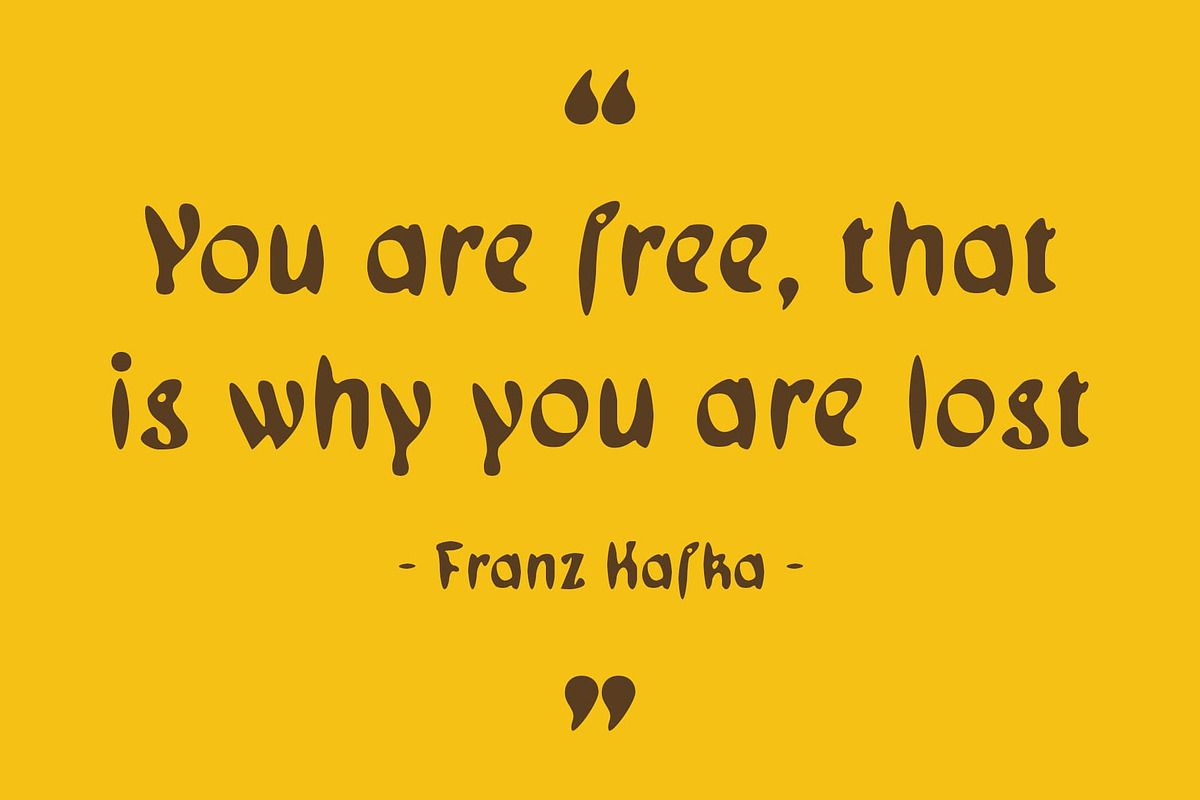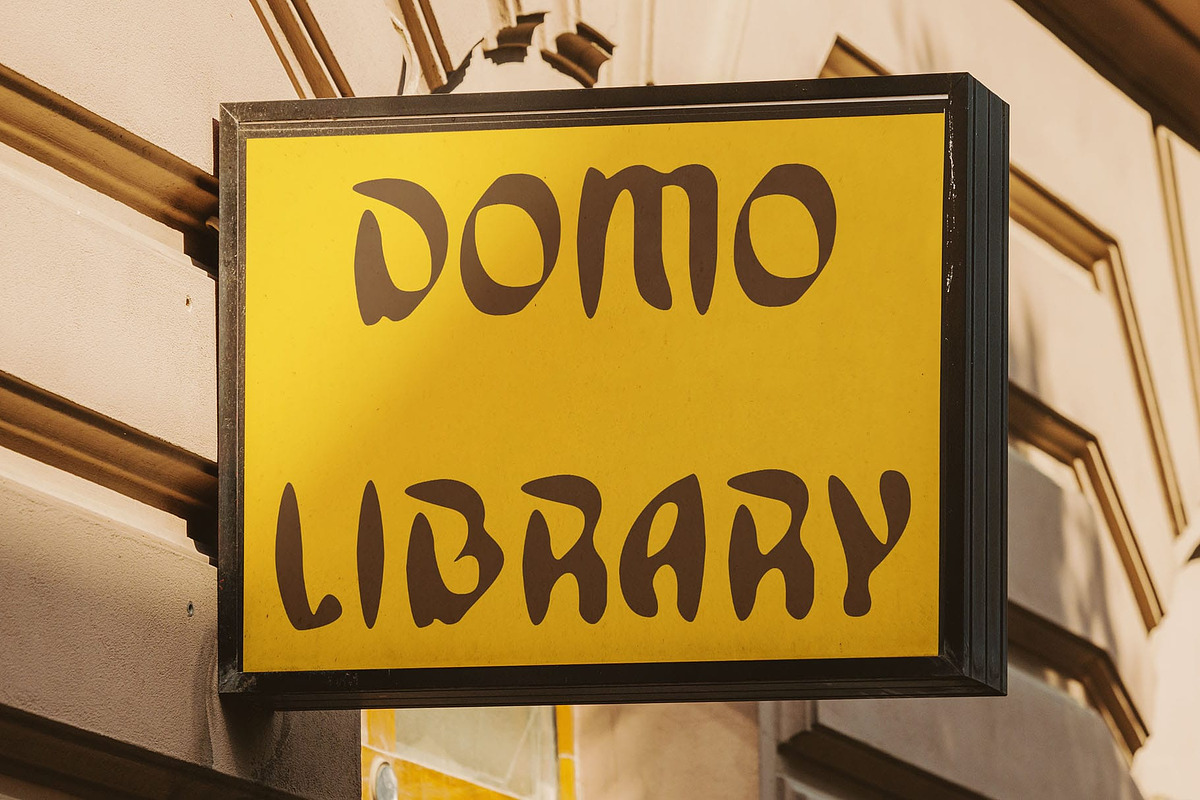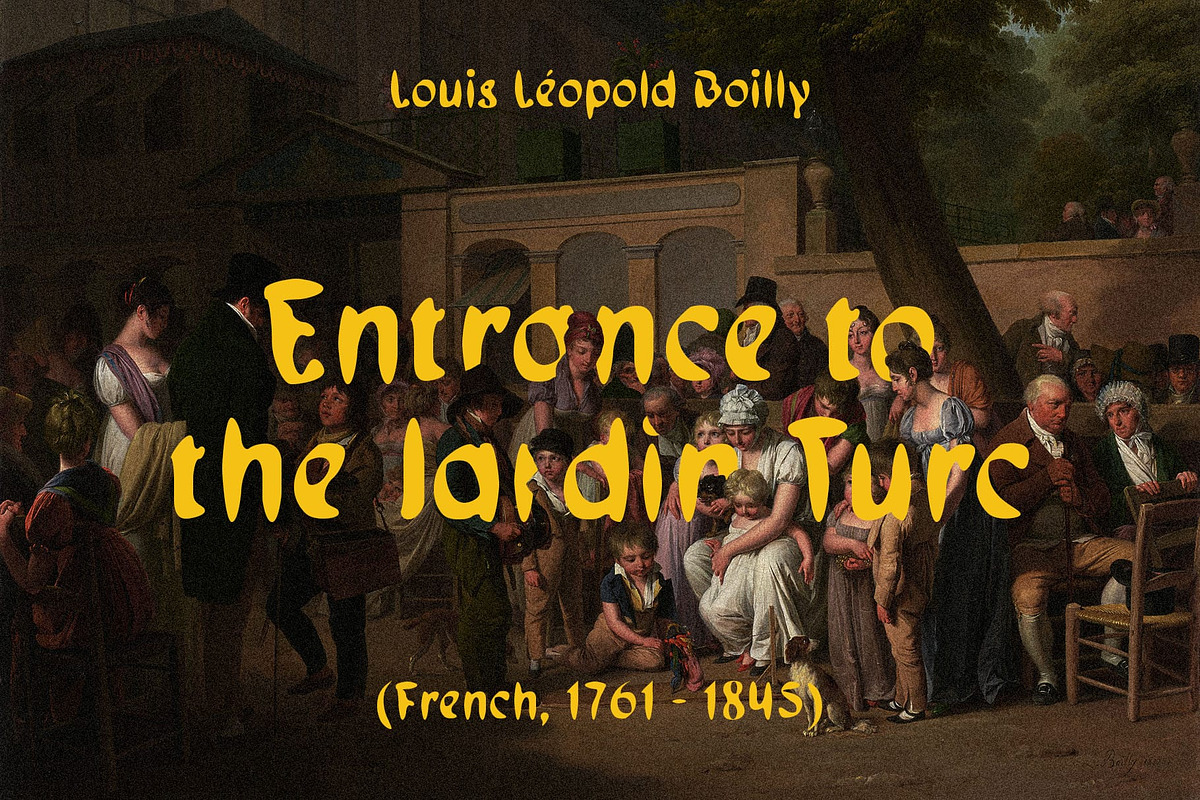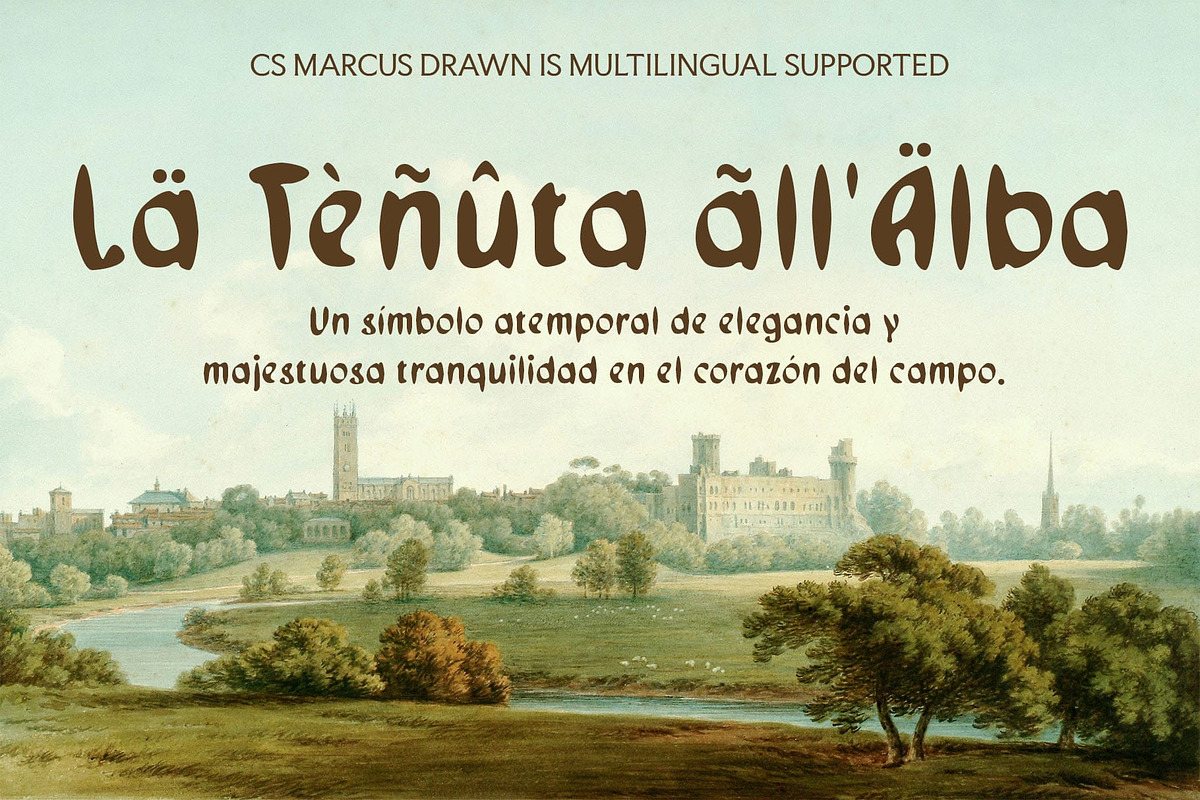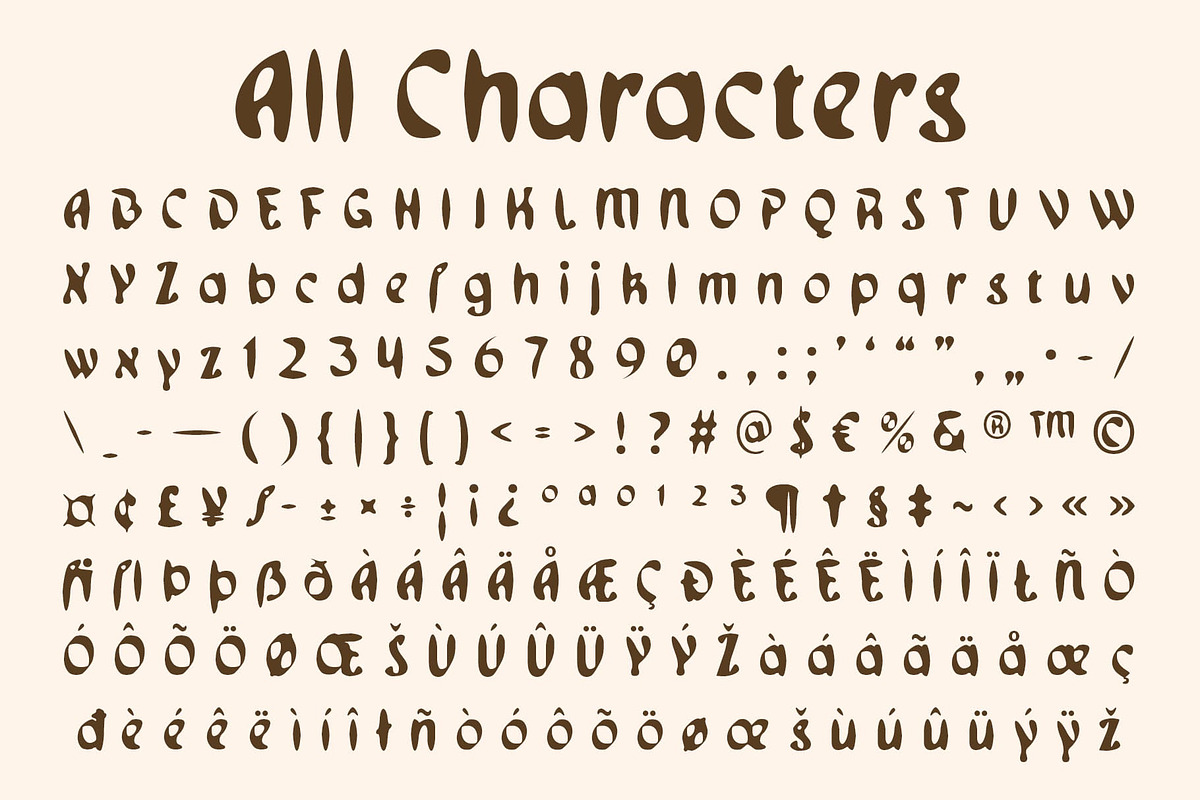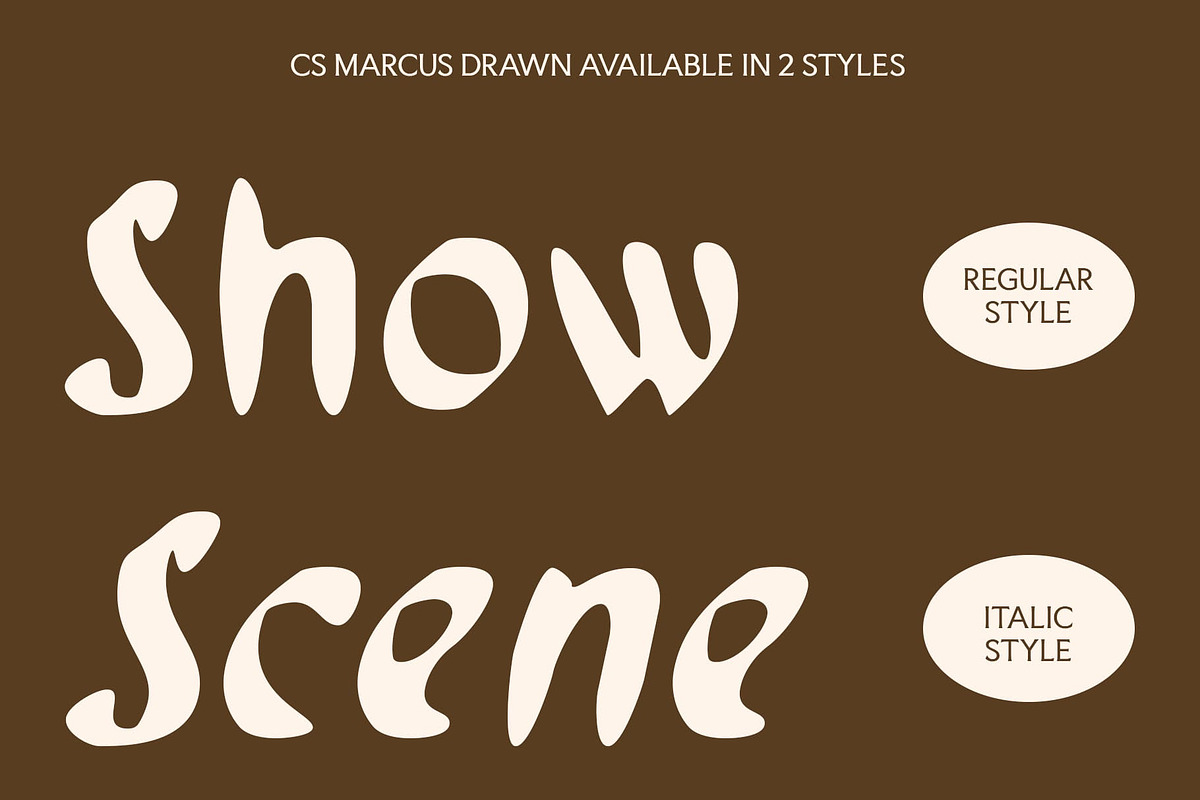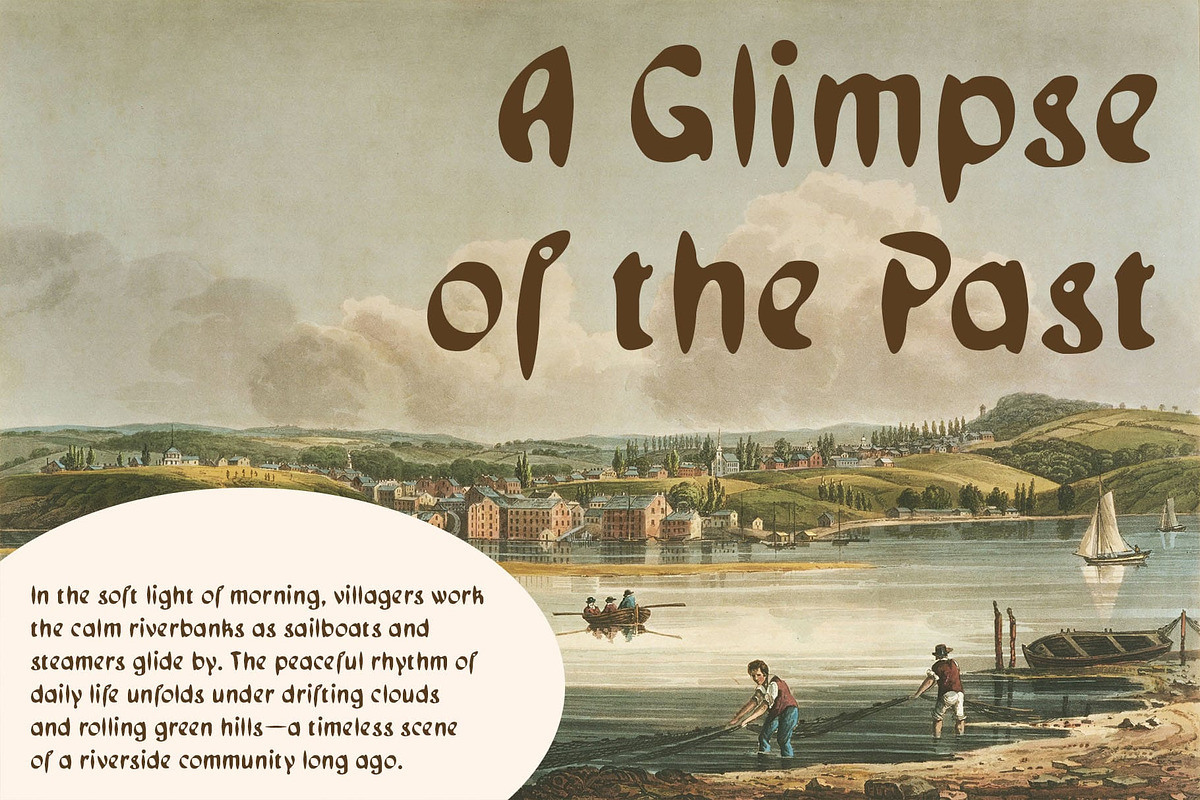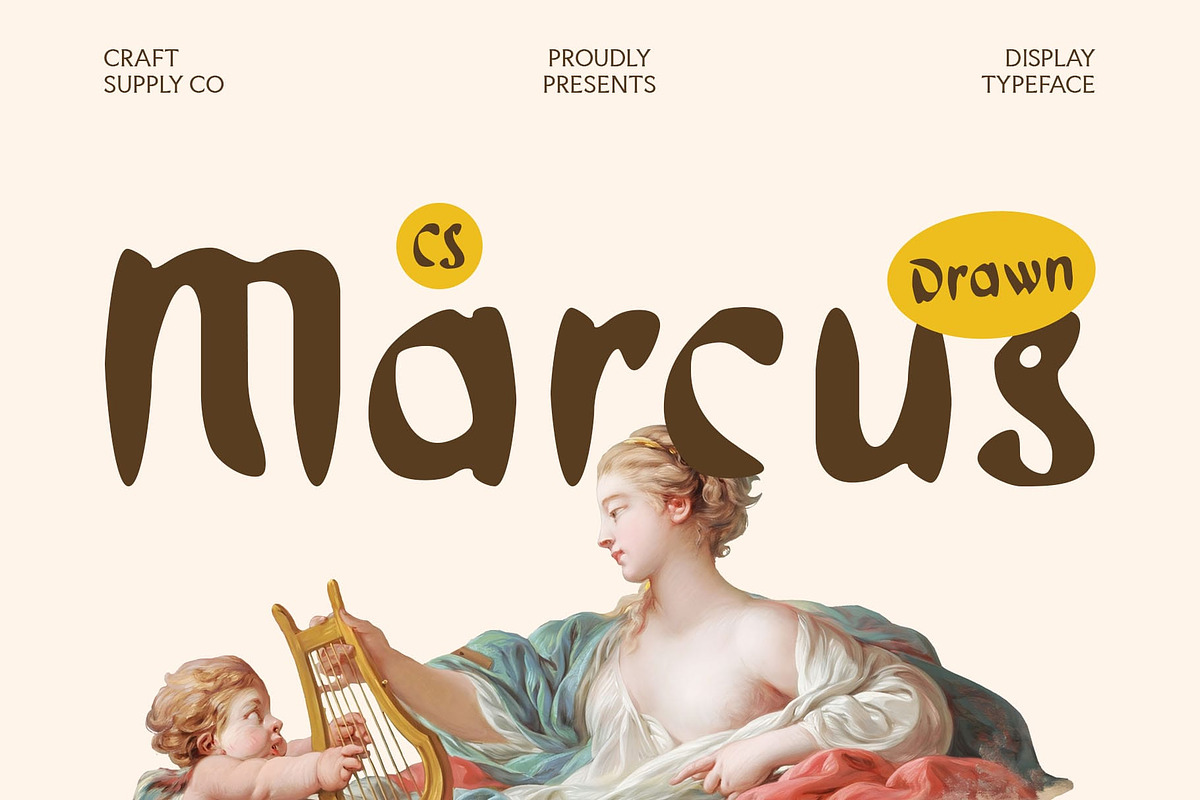
CS Marcus Drawn
CS Marcus Drawn – A Bold Fusion of Tradition and Expression
Classic Blackletter with a Modern Twist CS Marcus Drawn is a display font that combines the dramatic flair of traditional forms with a clean, contemporary structure. The result is a sharp and elegant typeface that retains the authority of its roots while feeling fresh and relevant for today’s designs.
Hand-Drawn Character for Raw Sophistication Infused with a drawn effect, each letterform carries a hand-rendered texture that adds raw energy and visual interest. This handcrafted detail softens the rigid edges of blackletter, giving the font a more expressive, personal, and artistic appearance.
Historic Roots with a Contemporary Edge While this bold, experimental, and characterful display font pays homage to centuries-old typographic traditions, its modern styling and drawn overlay give it a refreshingly contemporary edge. It’s perfect for projects that want to evoke legacy, rebellion, or depth—without losing clarity or modern taste.
Versatile for Bold, Creative Expression Whether used in music posters, underground zines, fashion branding, or editorial layouts, this dramatic, historical, and artistic font delivers powerful visual presence with a twist of rebellion. Its hybrid aesthetic bridges the gap between past and present, tradition and experimentation—making it the perfect choice for standout designs that speak with confidence and creativity.